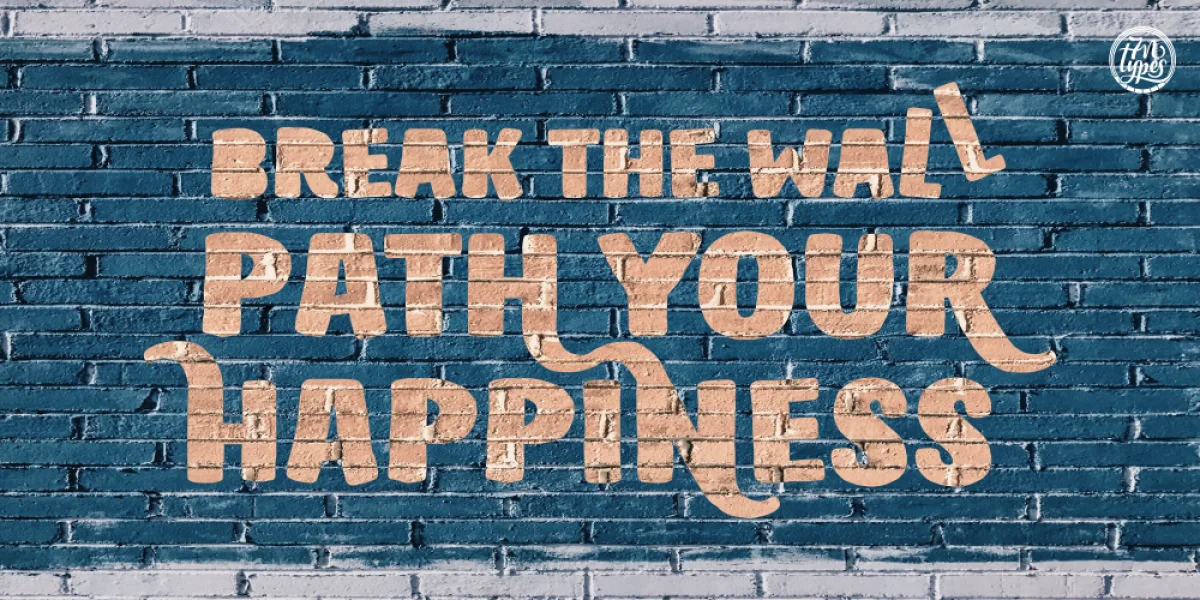
Hastro is a strong expressive font with slightly rough edges, designed by Situjuh Nazara.
Hastro is in the basis a sans serif font but comes with PUA encoded swashes that allow you to spice up your designs.